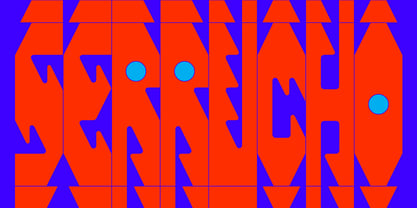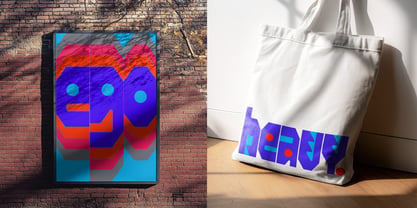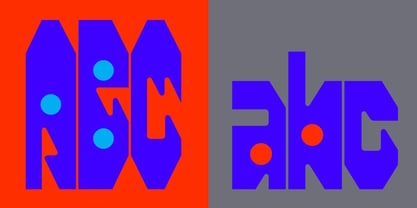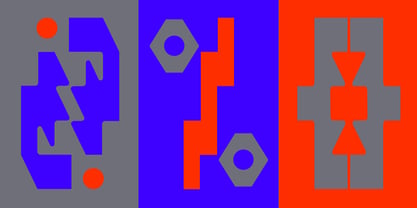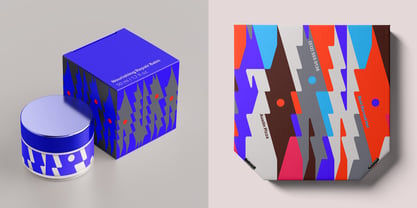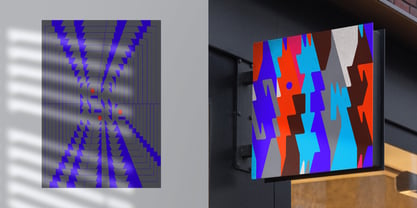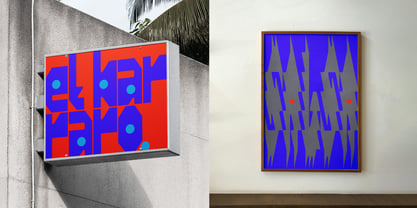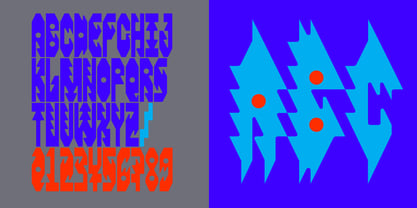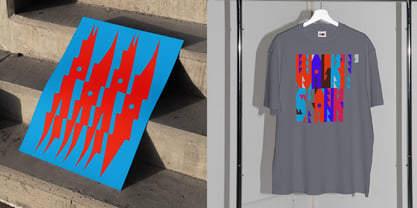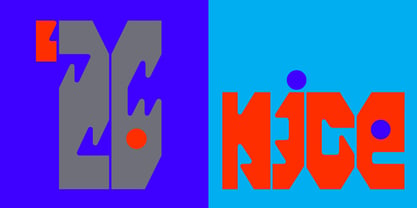
IH Serrucho
The IH Serrucho Font Family was designed by Rodrigo Fuenzalida, Alexander Wright, Michelle Benaim Steiner and published by In-House International. IH Serrucho contains 3 styles and family package options. More about this family
Serrucho is a variable display typeface with teeth. Named after the handsaw, it morphs from controlled brutality to unleashed frenzy across eight weights—each one sharpening the edges until letters feel like they're vibrating off the page. At its flattest (Serrucho-100), the type is bold, blocky, and authoritative. Angular but steady. As the variable axis cranks toward its extreme (Serrucho-800), those clean edges erupt into spikes, creating a frenetic, almost electrified aesthetic that feels mechanical and feral at once. The result is a typeface that can whisper with weight or scream with serrated intensity. Serrucho channels the raw energy of post-punk flyers, hardcore show posters, and protest graphics cut by hand. It's built for words that refuse to be ignored—whether that's bold branding that commands attention, event graphics that crackle with energy, or packaging that won't sit quietly on the shelf. Use it when polite and forgettable just won't cut it: from tiny stickers to merch to flyers to billboards to headlines that won’t quit. Tech Specs: The typeface includes uppercase and lowercase alphabets, numbers, punctuation, and latin diacritics. Available as a variable font and as individual weights. About: Serrucho was designed by Alexander Wright with Michu Benaim Steiner at In-House International foundry, and developed by Rodrigo Fuenzalida at FragType. In-House International is a studio founded by Lope Gutiérrez Ruiz, Michu Benaim Steiner and Alexander Wright that delivers branding breakthroughs for game-changers.  In-House foundry offers bold, fearless, and expressive, display typefaces that tell a story. Its previous releases have been featured on Design Milk, DesignBoom, Slanted, PAGE. They’ve also been used to create standout work by designers around the world, and even won some awards.